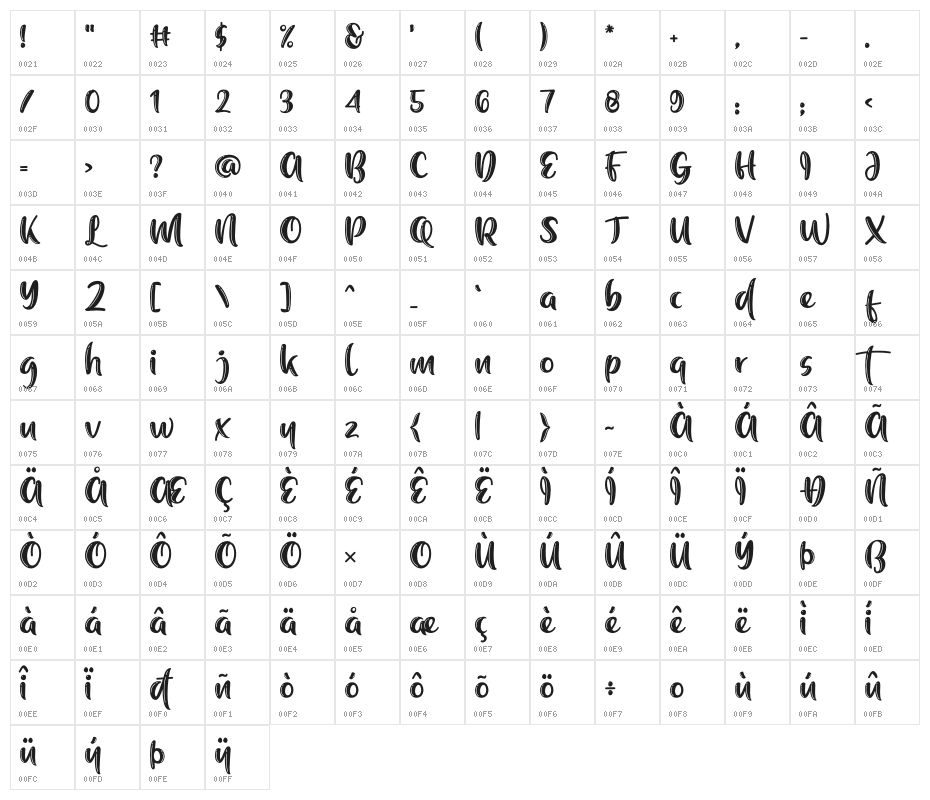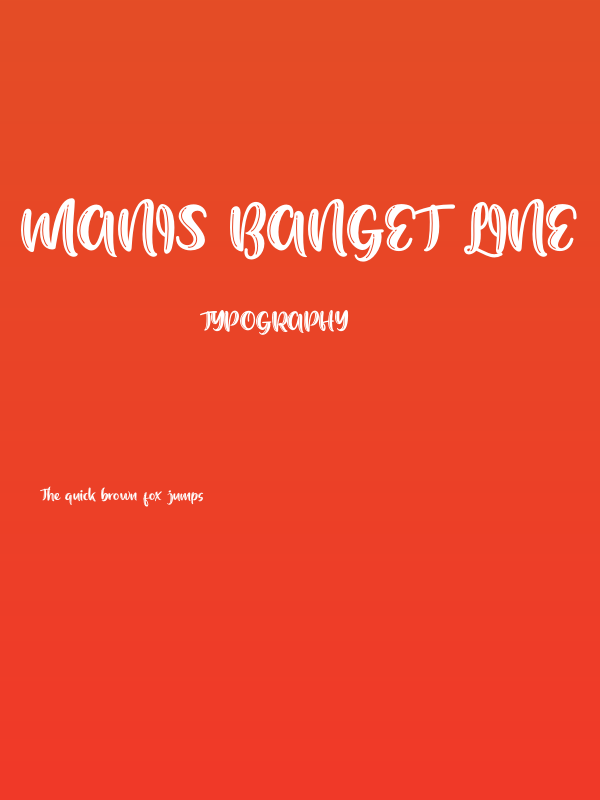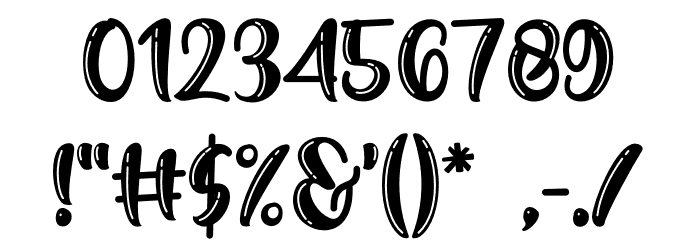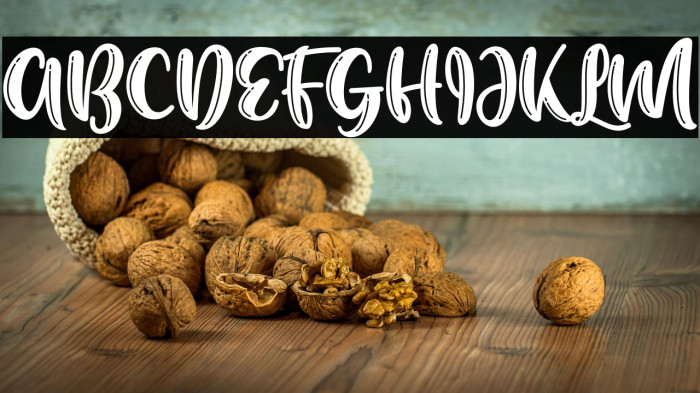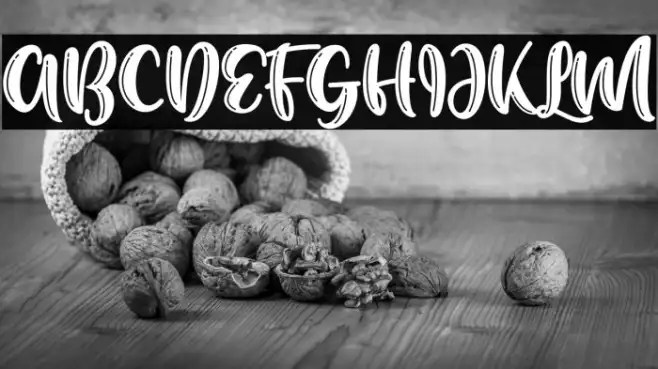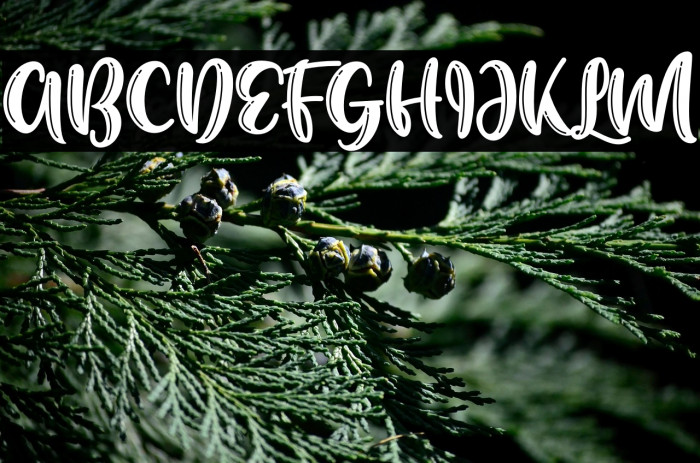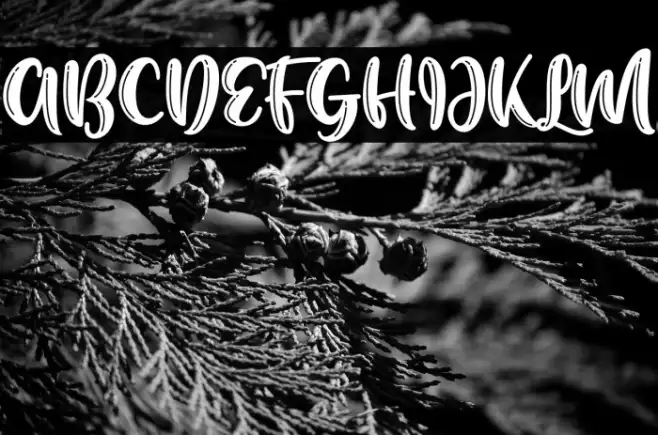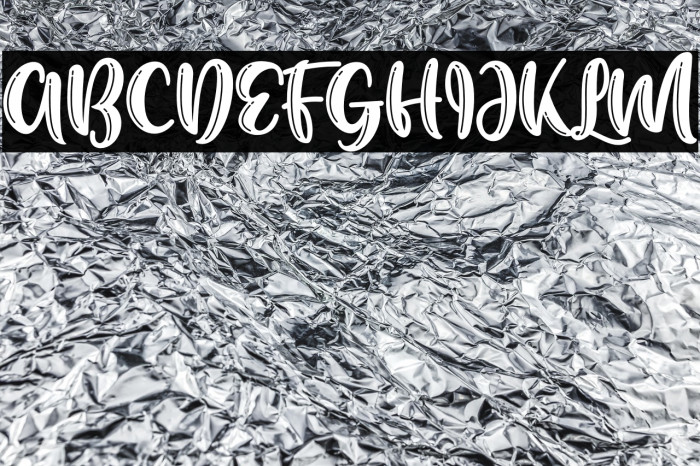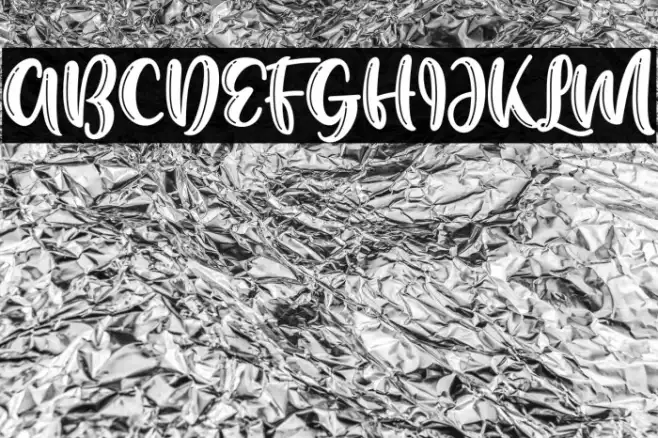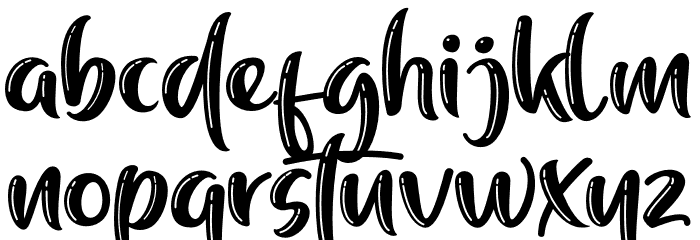
Manis Banget Line Font
Manis Banget Line Description
This font features a bold, expressive script style with a playful and artistic flair. The letters are characterized by their thick strokes and fluid, cursive design, creating a dynamic and lively appearance. Each character has a unique, hand-drawn quality, with varying stroke widths that add depth and personality. The uppercase letters are bold and prominent, while the lowercase letters maintain a consistent flow, enhancing the overall cohesiveness of the font. The numbers and special characters are equally stylized, ensuring a harmonious look across all text elements. This font is ideal for projects that require a touch of creativity and individuality.
| Proposed Projects | Ideal for branding, invitations, posters, and creative design projects. |